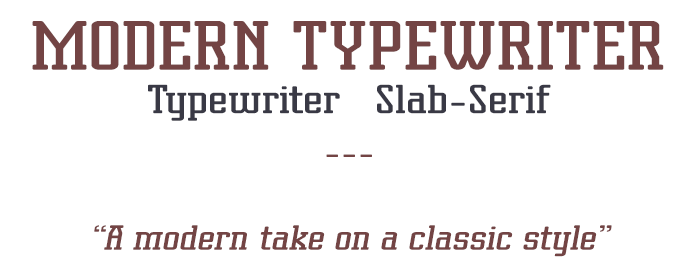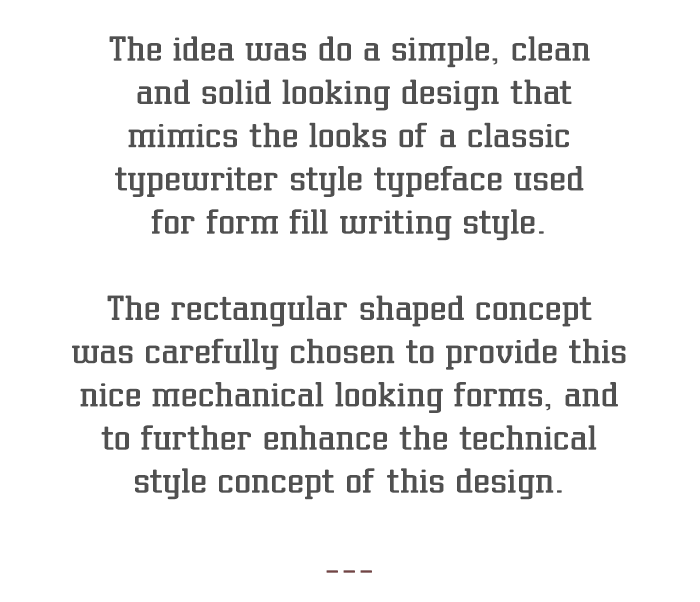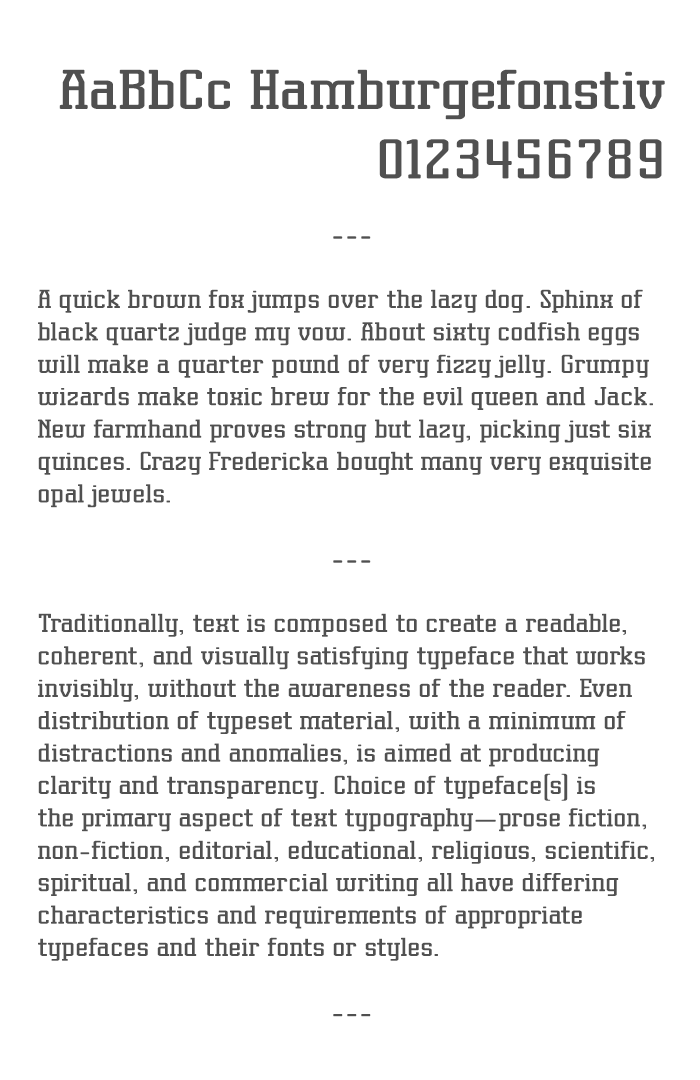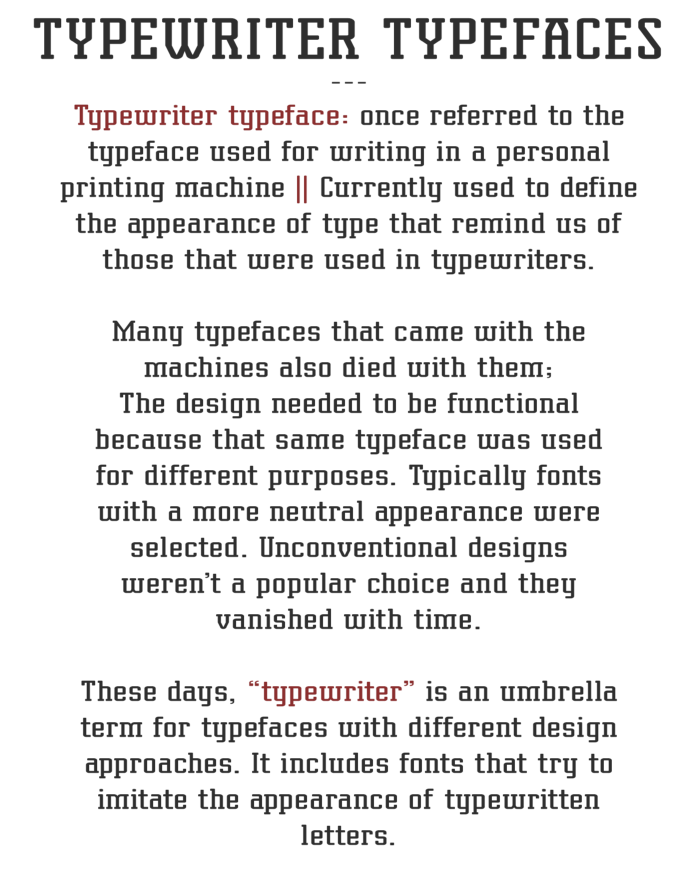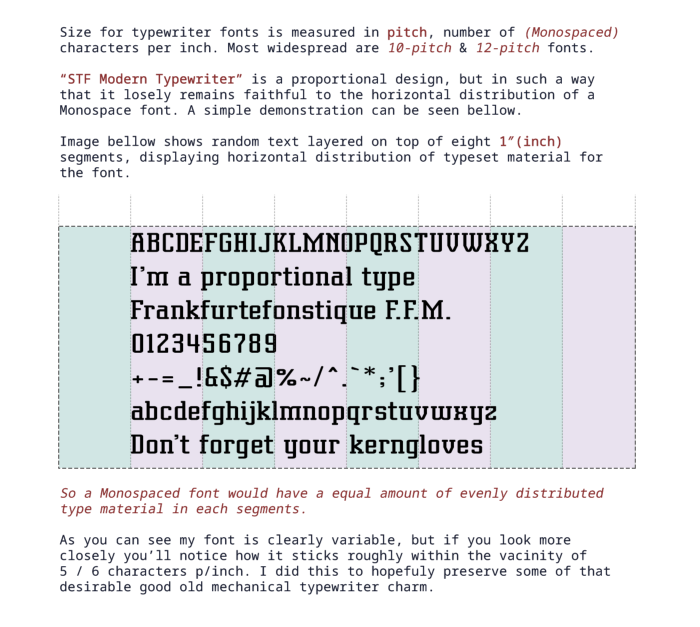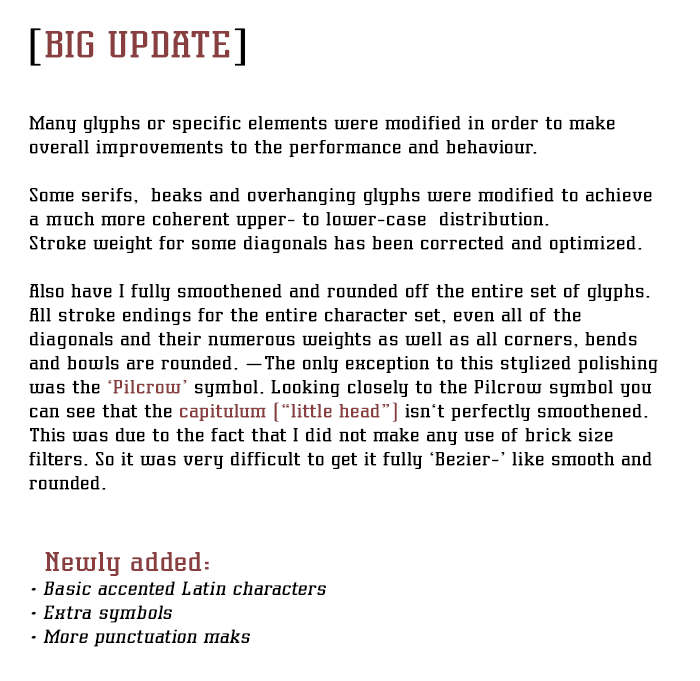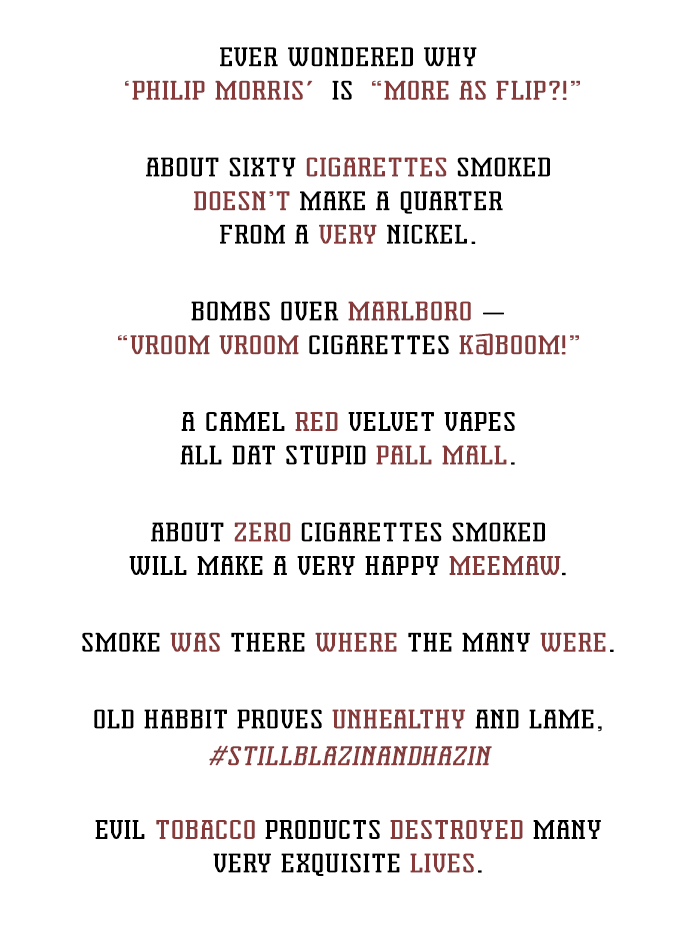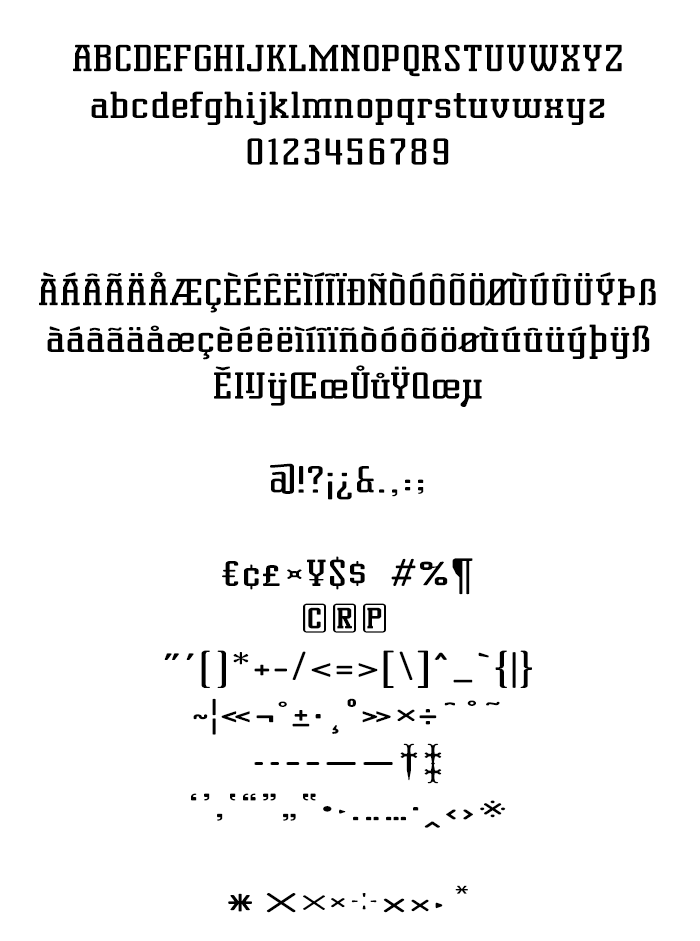
• MODERN TYPEWRITER - Typewriter style Slab-Serif
The idea was do a simple, clean  and solid looking design that mimics the looks of a classic typewriter style typeface used for form fill writing style.
The rectangular shaped concept was carefully chosen to provide this nice mechanical looking forms, and to further enhance the technical style concept of this design.
Okay, corrections: "fully rounded throughout" !?
I realized I forgot to smoothen and round off the vertical transitions on stoke diagonals for the of characters: (A, K, R, Vv, W, 7) ?
"Now fixed" - Sorry for the terrible lies... ?